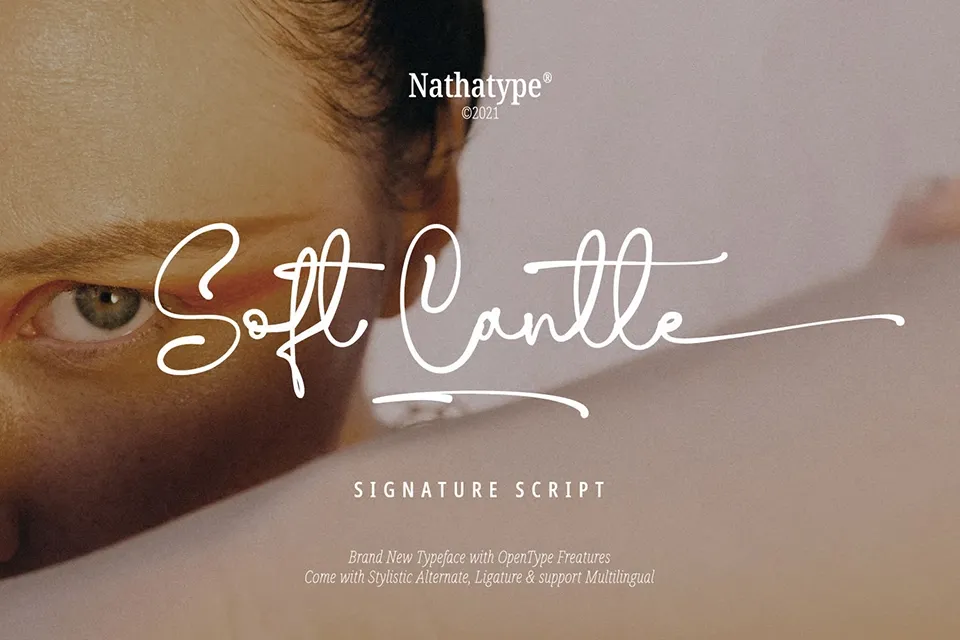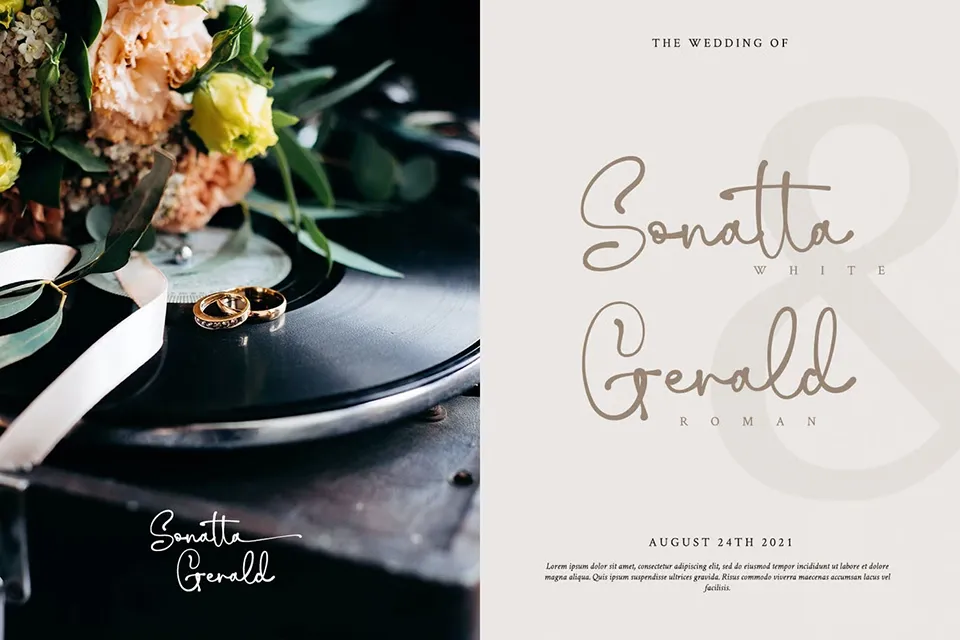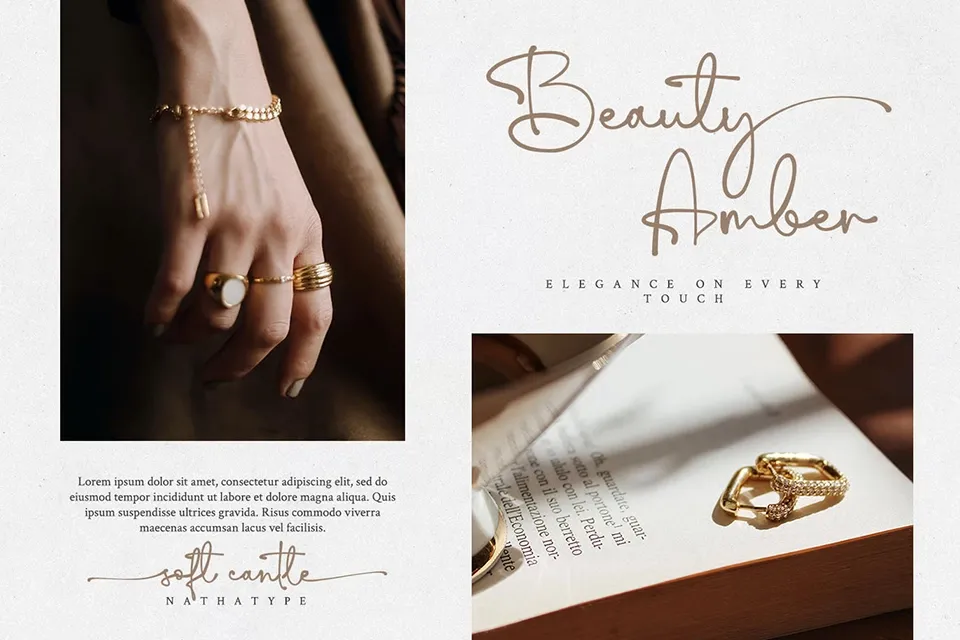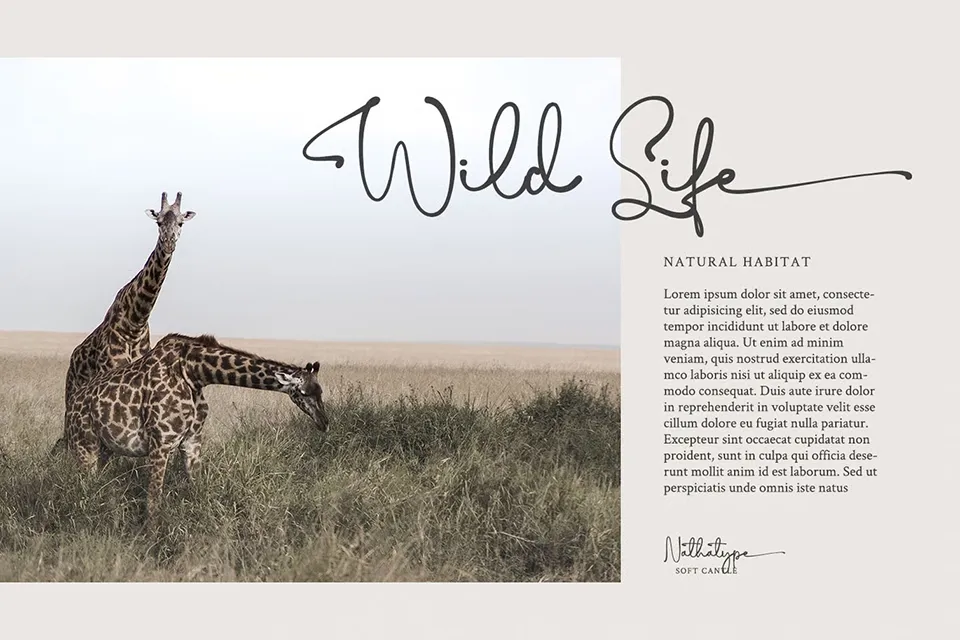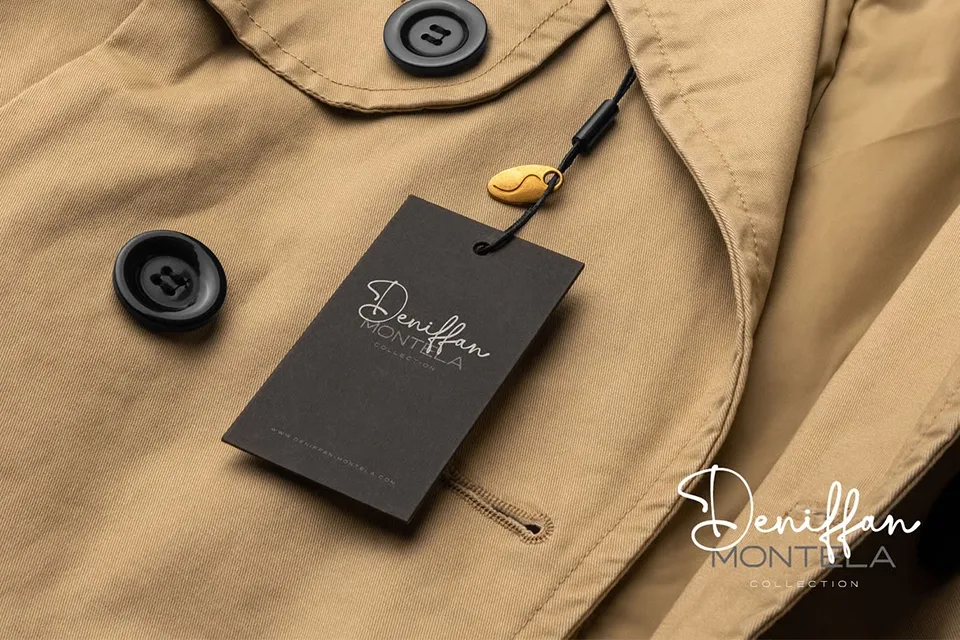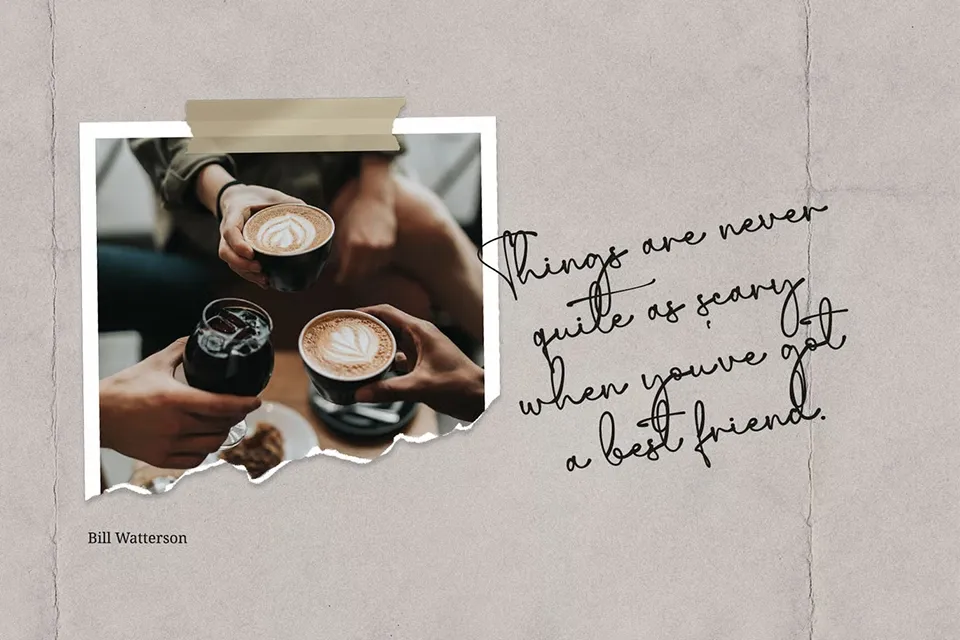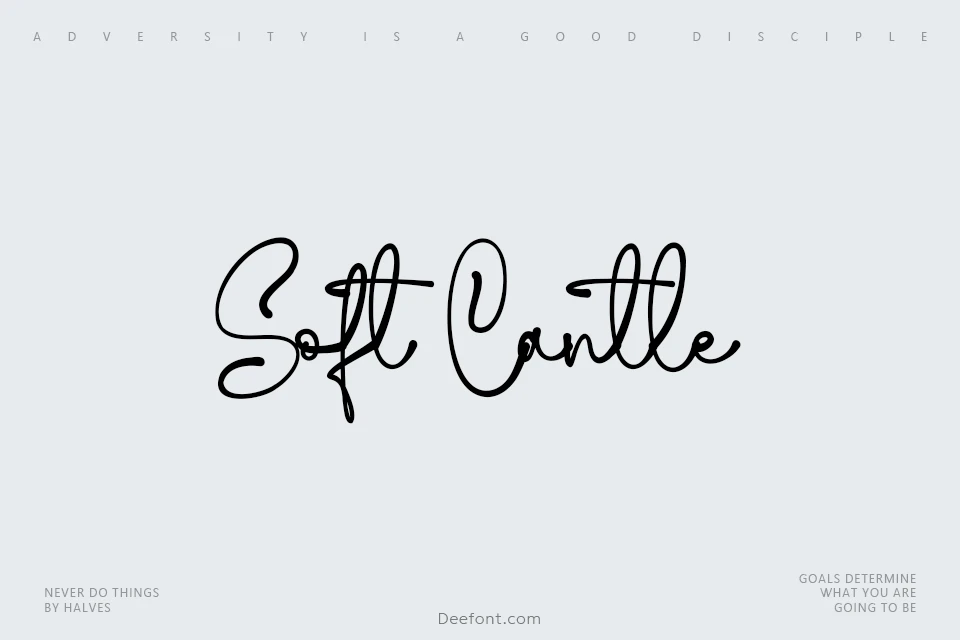
Soft Cantle Handwritten Font
Soft Cantle Handwritten Font is a handcrafted signature script designed to bring elegance, modernity, and style to your branding. Perfect for social media branding projects, fashion designs, printed quotes, packaging, or as a stylish text overlay on any background image, this font offers ligatures, stylistic sets, and multilingual support for over 80 languages. Its whimsical and elegant character makes it ideal for both personal and professional creative work.